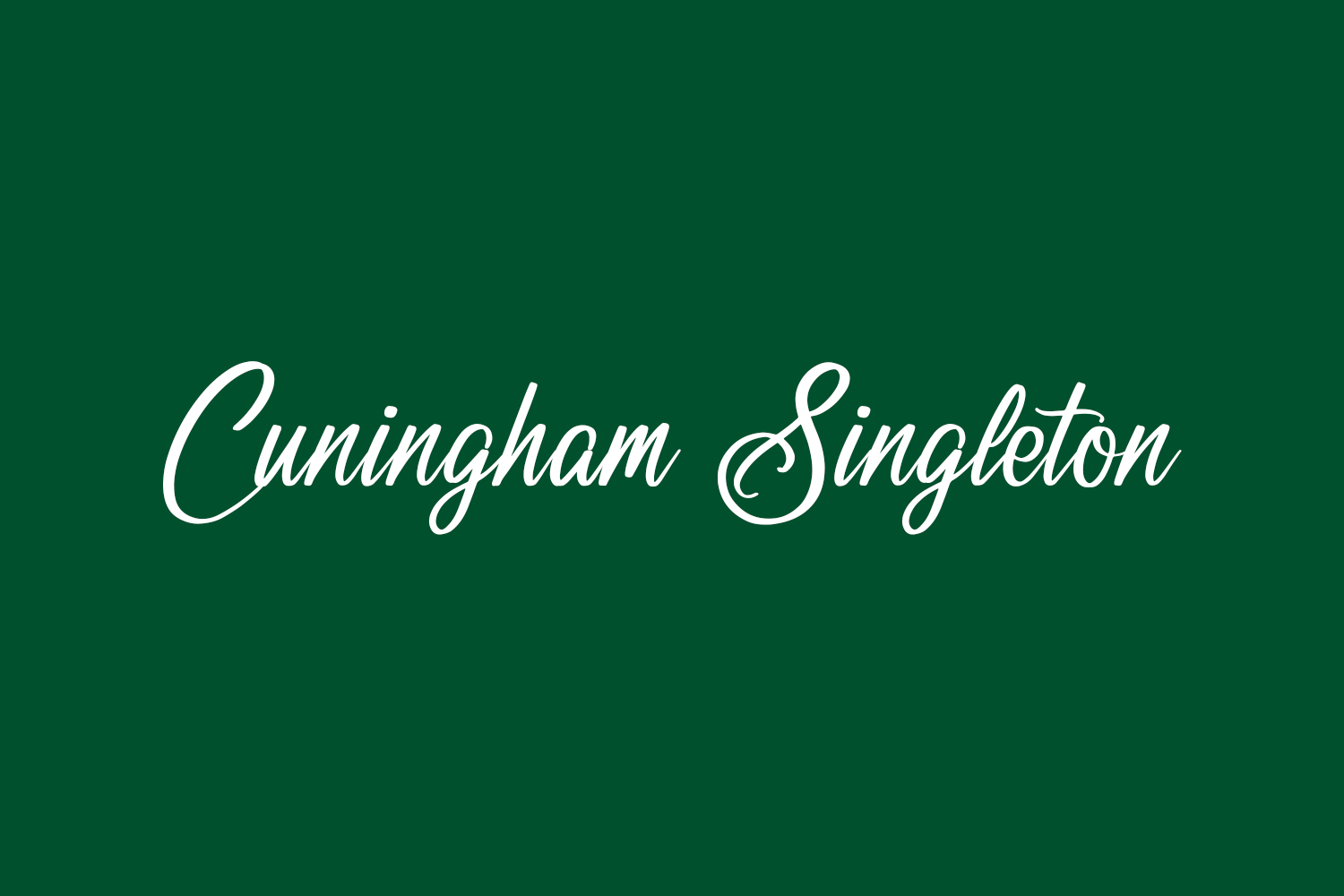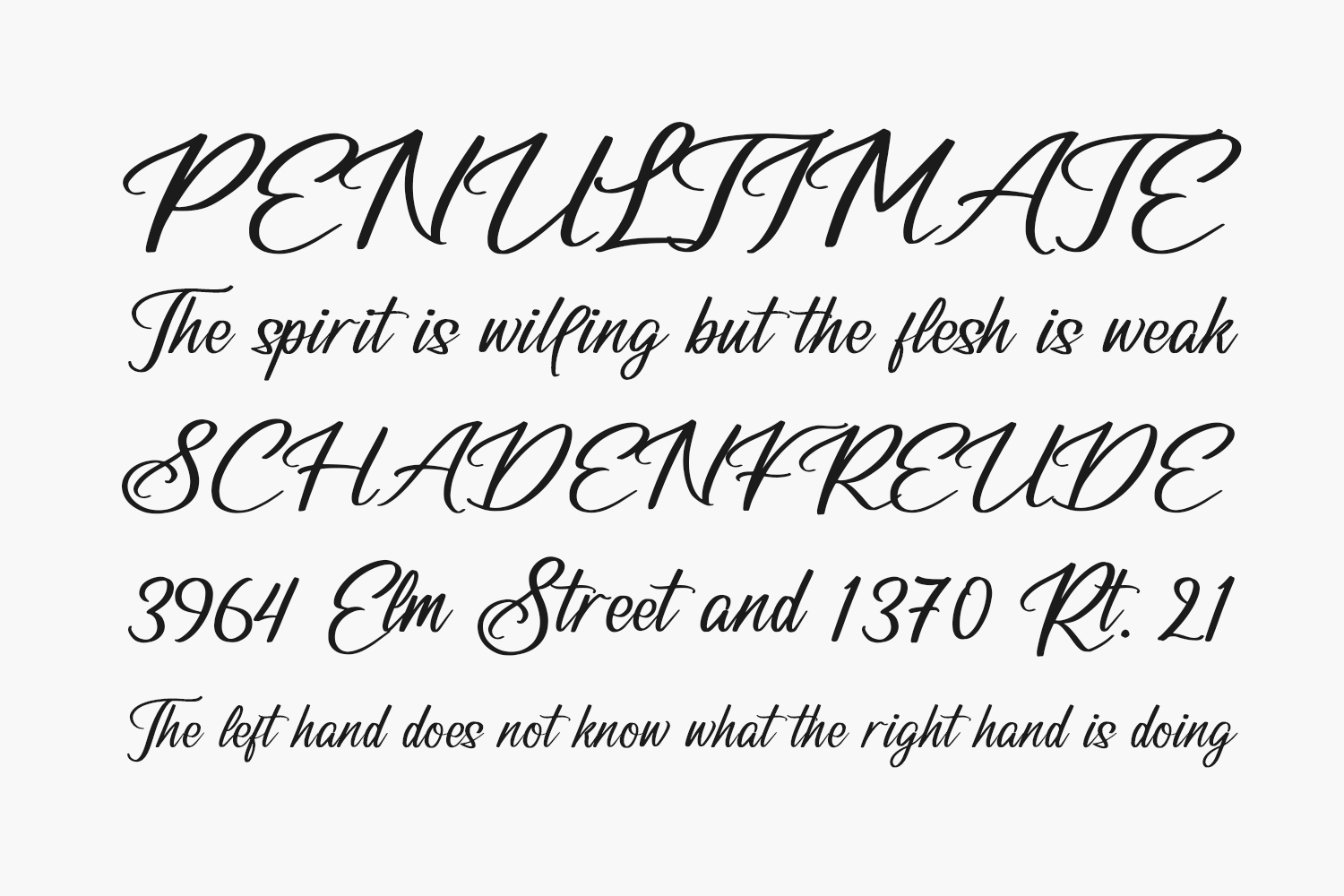
Cuningham Singleton Free Font Family is a beautiful and light handwritten font with a unique feel and a stunning impact. It will add a luxury spark to any design project that you wish to create. Cuningham Singleton Free Font Family was designed by Perspectype Studio and is free for personal use only. Please purchase the full version for commercial use.
Cuningham Singleton Regular The quick brown fox jumps over the lazy dog
Cuningham Singleton Italic The quick brown fox jumps over the lazy dog